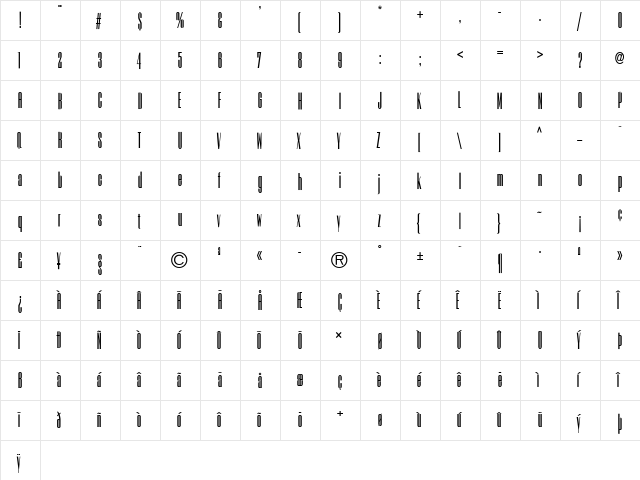
EmpireStateBold Regular
Design Context for EmpireStateBold Typeface
EmpireStateBold takes a measured approach to typography — its balanced proportions and neutral character make it a reliable workhorse for both digital and print work. Its bold stroke weight gives it real presence on the page.